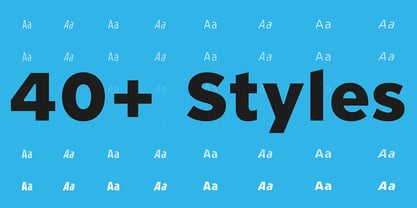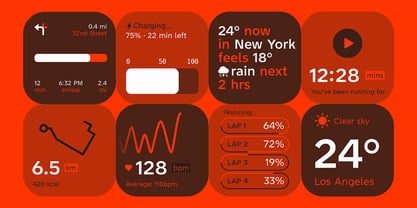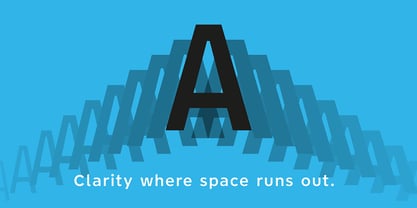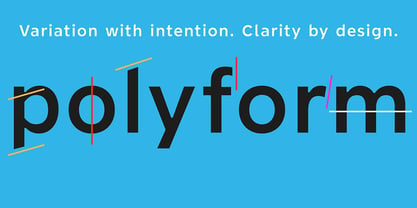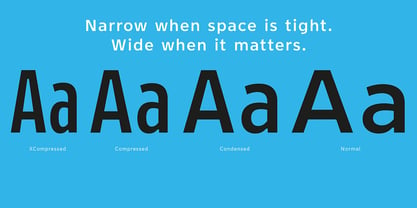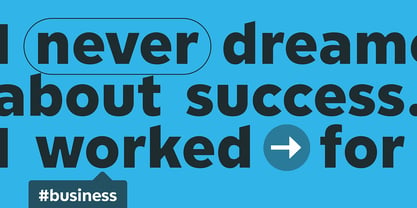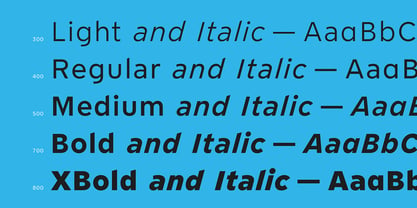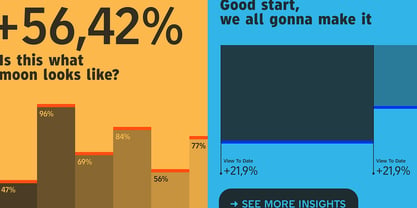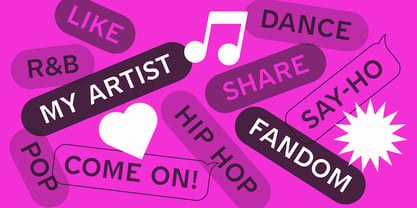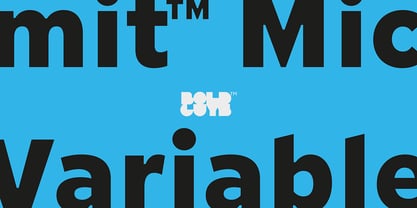
Limit Micro Variable Concept
The Limit Micro Variable Concept Font Family was designed by Jörg Hemker and published by Bold Guys™. Limit Micro Variable Concept contains 2 styles and family package options. More about this family
Limit™ Micro Variable transforms precision into a continuously adjustable system for the smallest scales. Reinforced forms, simplified shapes, and carefully calibrated spacing remain optimized for clarity — while weight can be tuned to match contrast, resolution, and density. Designed for captions, labels, maps, and complex data environments, it maintains rhythm and legibility under tight spatial constraints. Stable, transparent, and engineered for micro-typography — now with refined control.